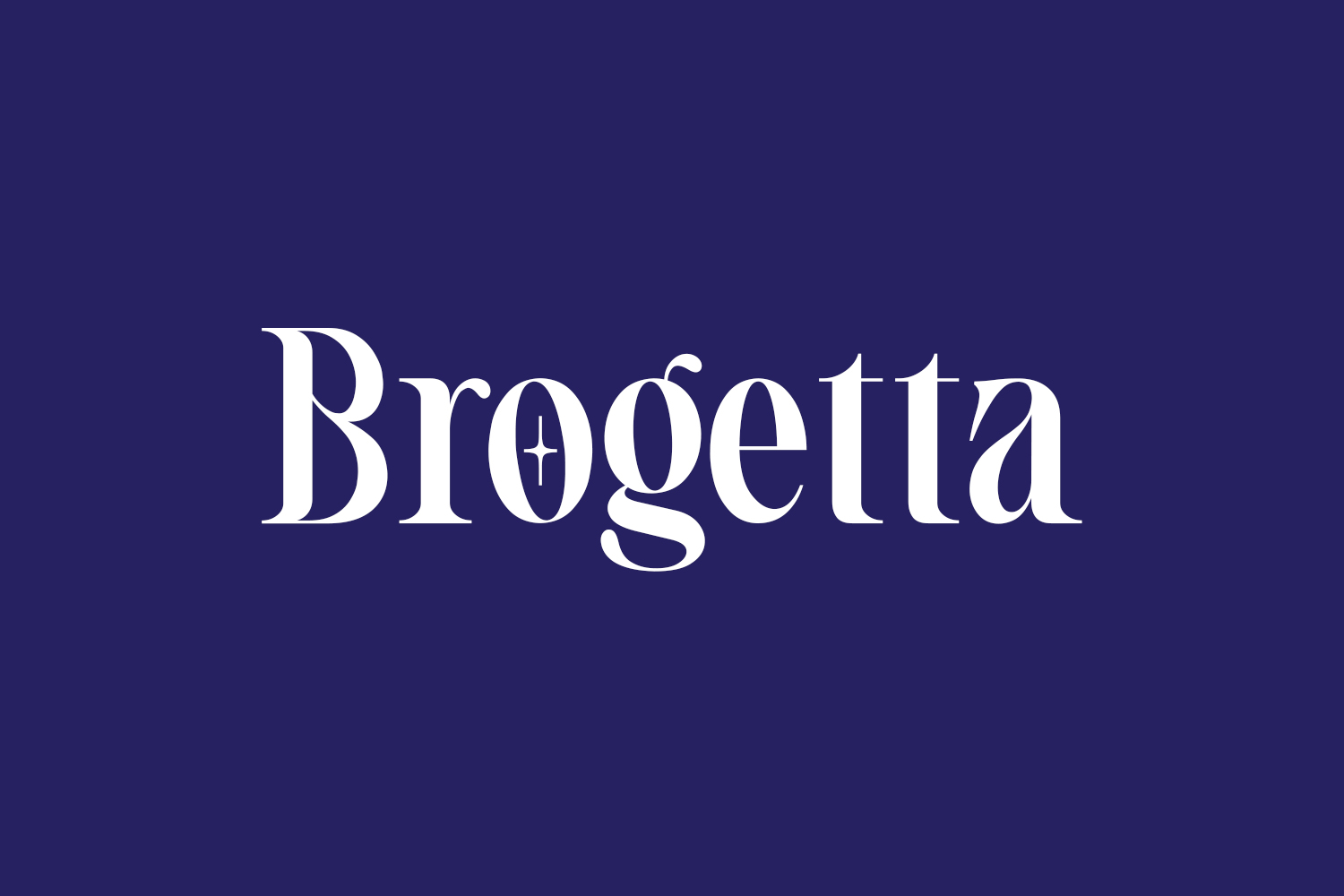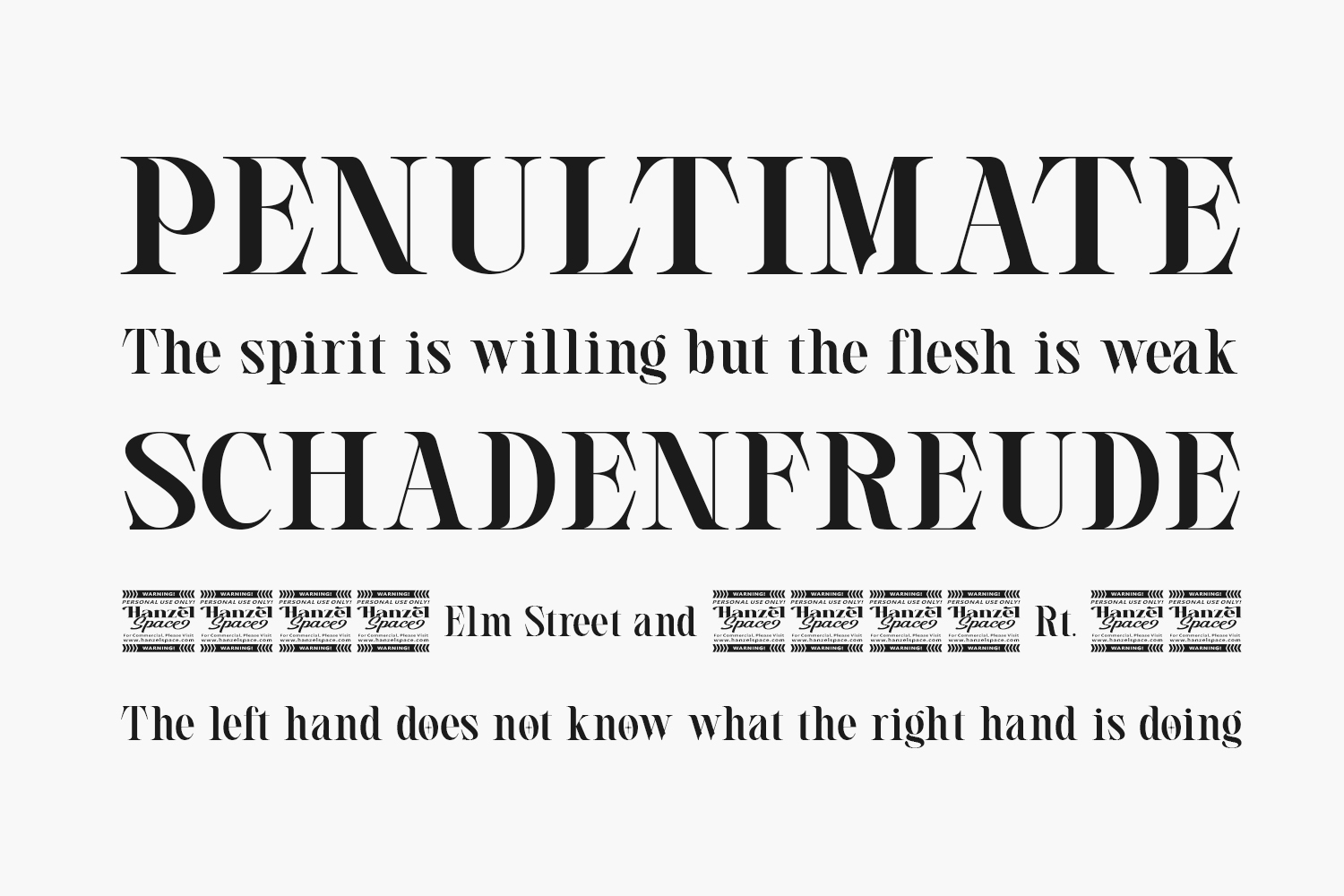
Discover Brogetta Free Font, a contemporary serif font ideal for a wide range of projects, including fashion-related designs, magazines, logos, branding, photography, invitations, wedding cards, quotes, blog headers, posters, advertisements, postcards, books, websites, and more. Its versatile style ensures a perfect fit for various creative endeavors. Brogetta Free Font is a demo and free for personal use only. Please purchase the full version for commercial use.
Designed by Hanzel Space